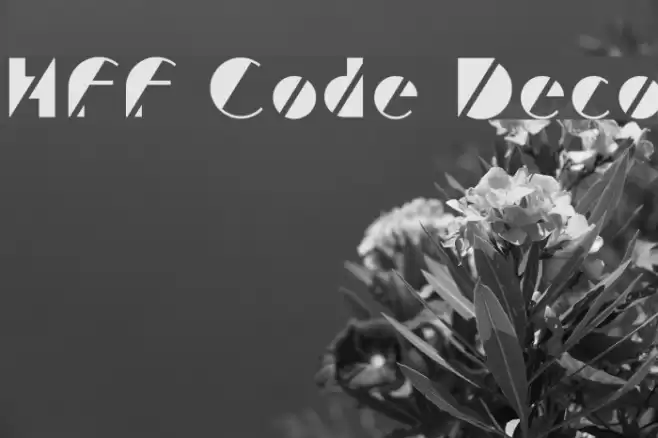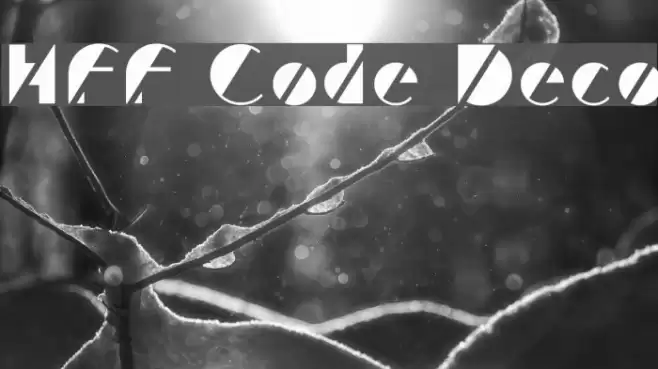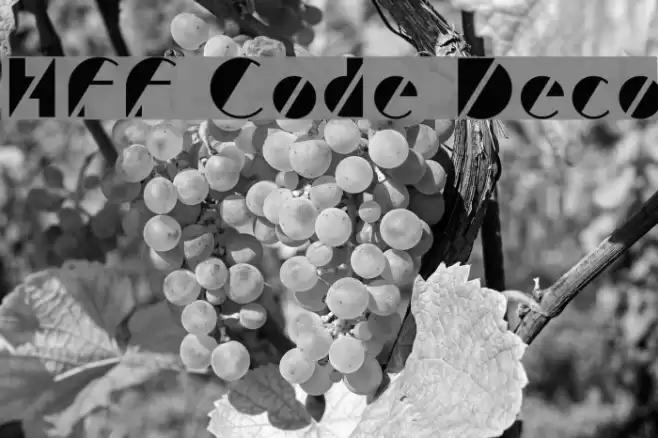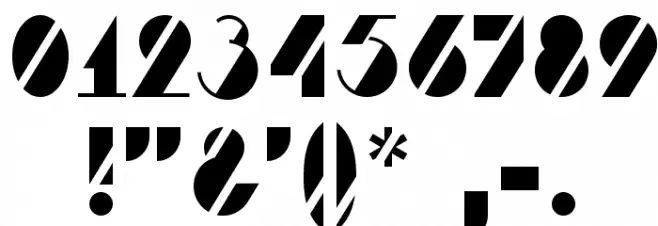
HFF Code Deco Font
HFF Code Deco Description
This font features a bold and geometric design, characterized by its sharp angles and distinct cut-out shapes. The uppercase letters are particularly striking, with a futuristic and avant-garde appearance. The lowercase letters maintain the same geometric style, offering a cohesive look across the typeface. Numbers and special characters are designed with the same boldness and angular cuts, making them stand out in any design. The overall aesthetic is modern and eye-catching, suitable for projects that require a strong visual impact.
A bold, geometric font with sharp angles and a modern aesthetic from Uncategorized fonts.
- Proposed Projects: Ideal for branding, posters, album covers, and any design that requires a futuristic or avant-garde touch.